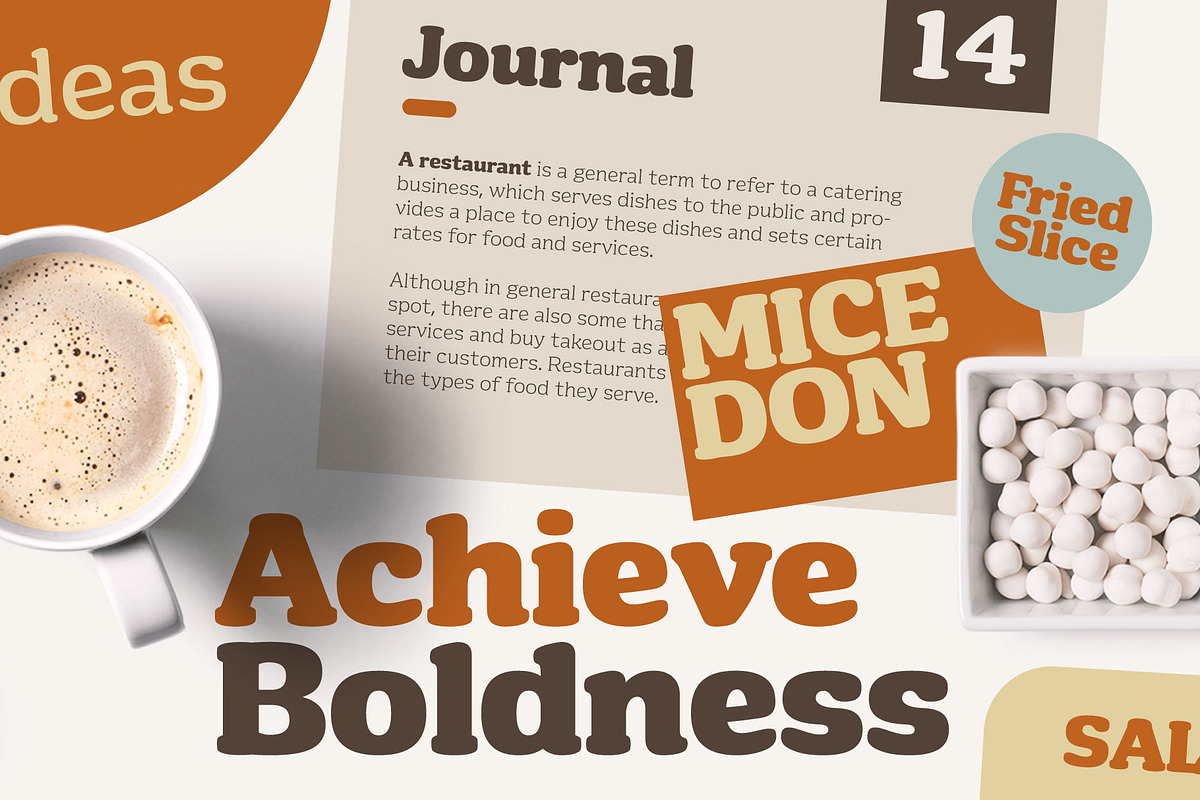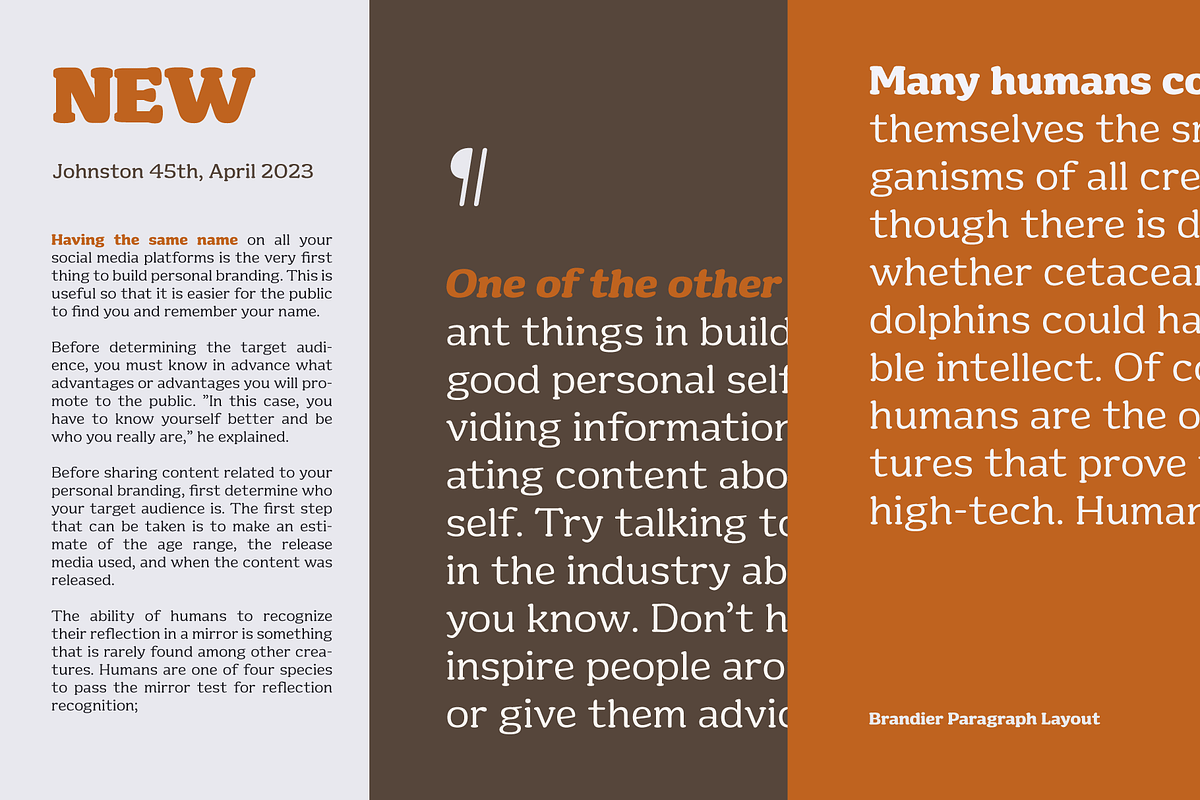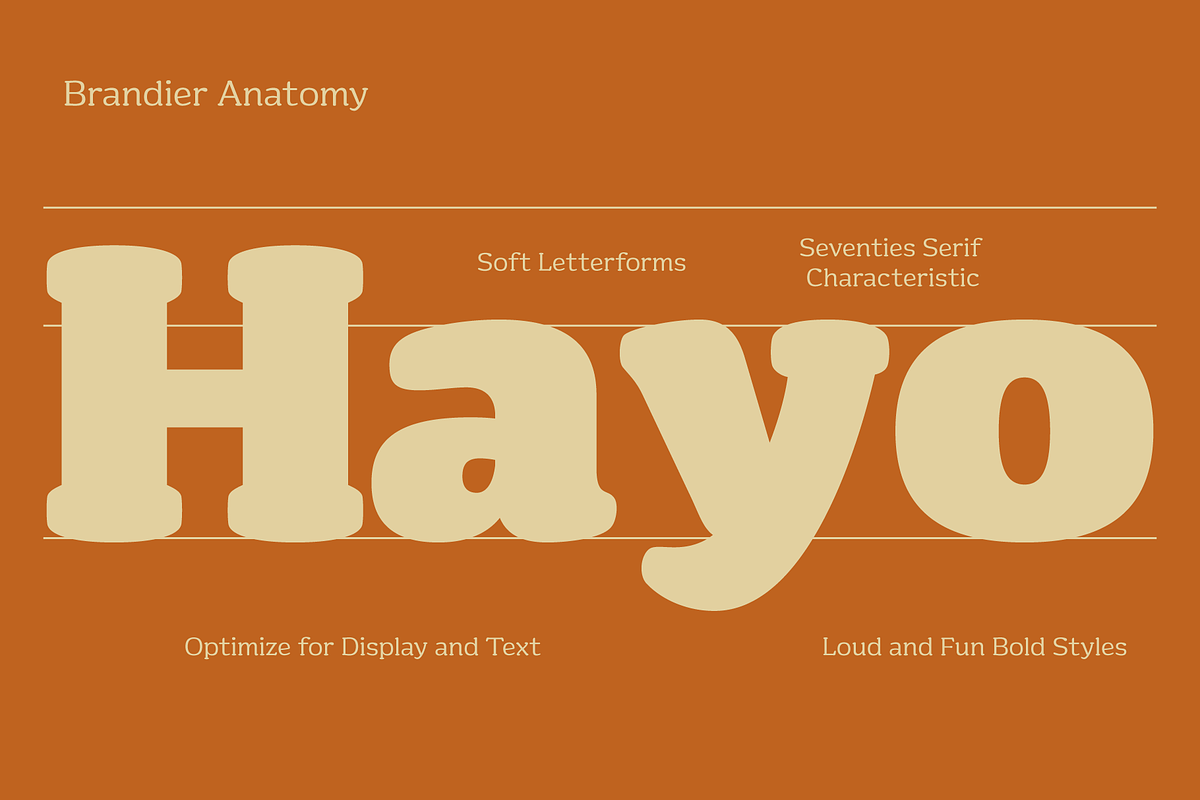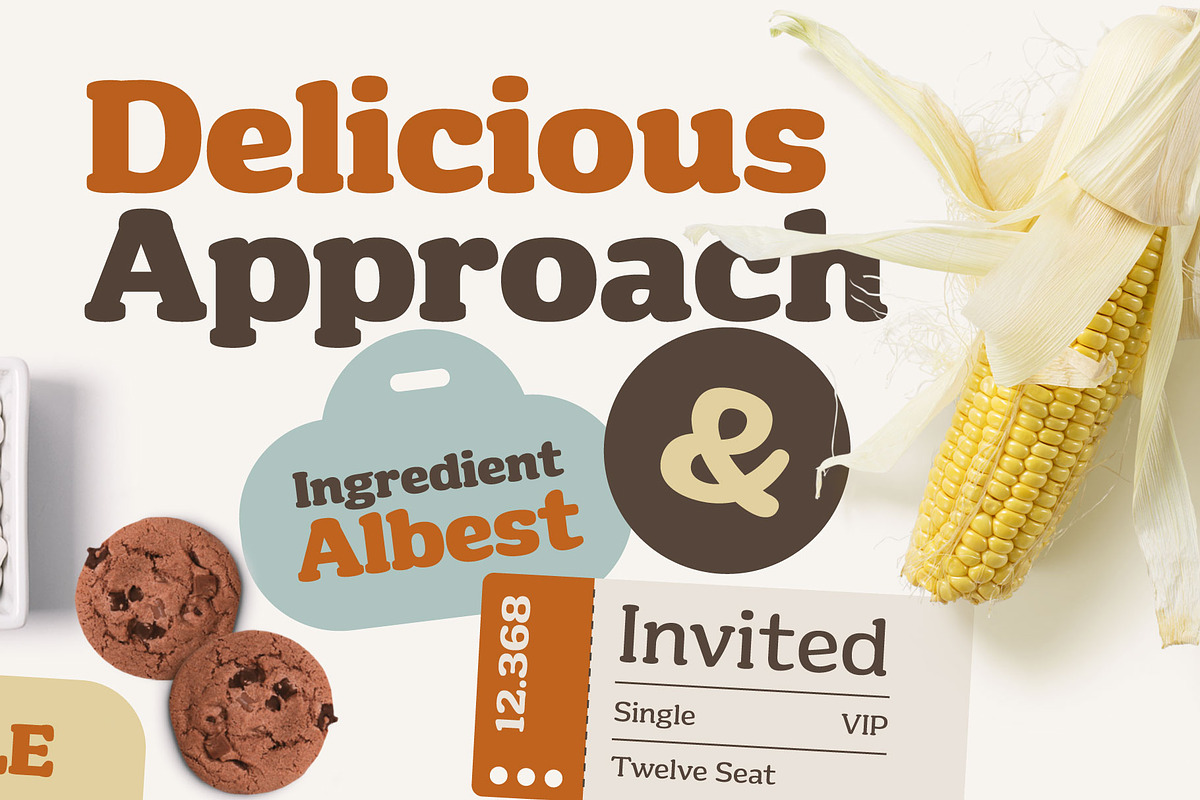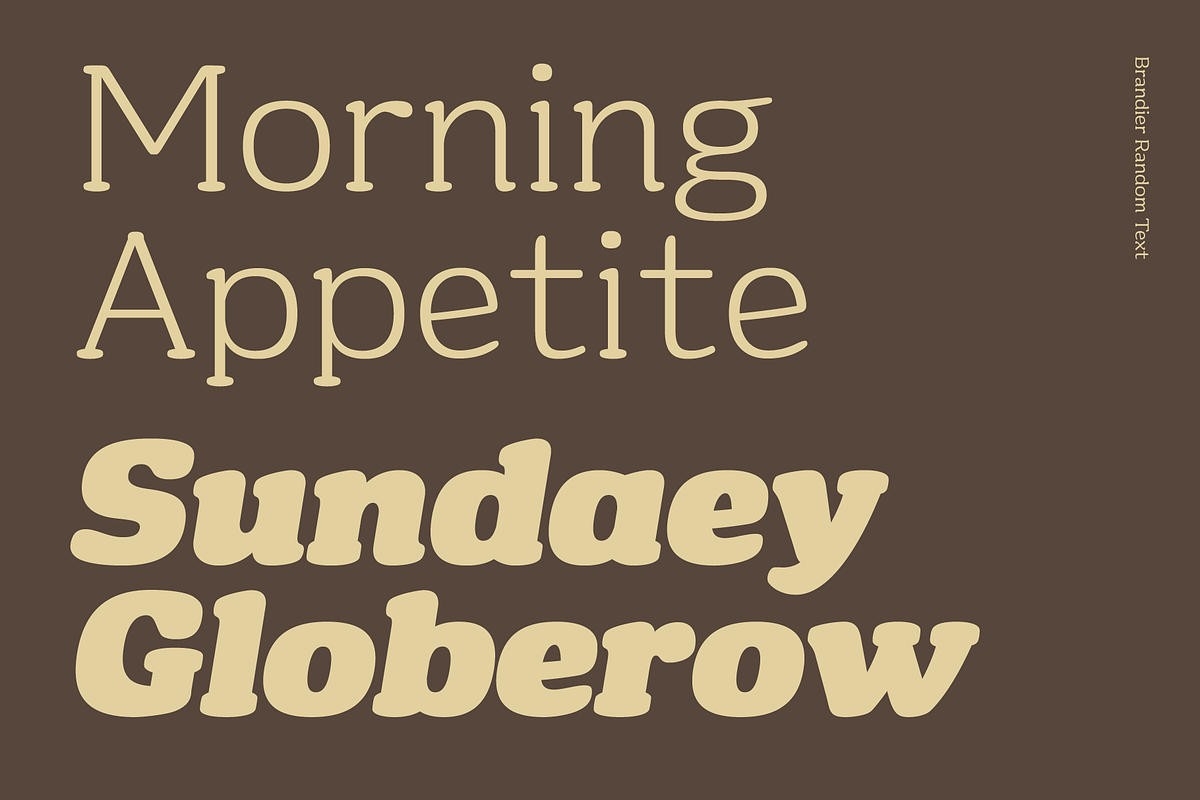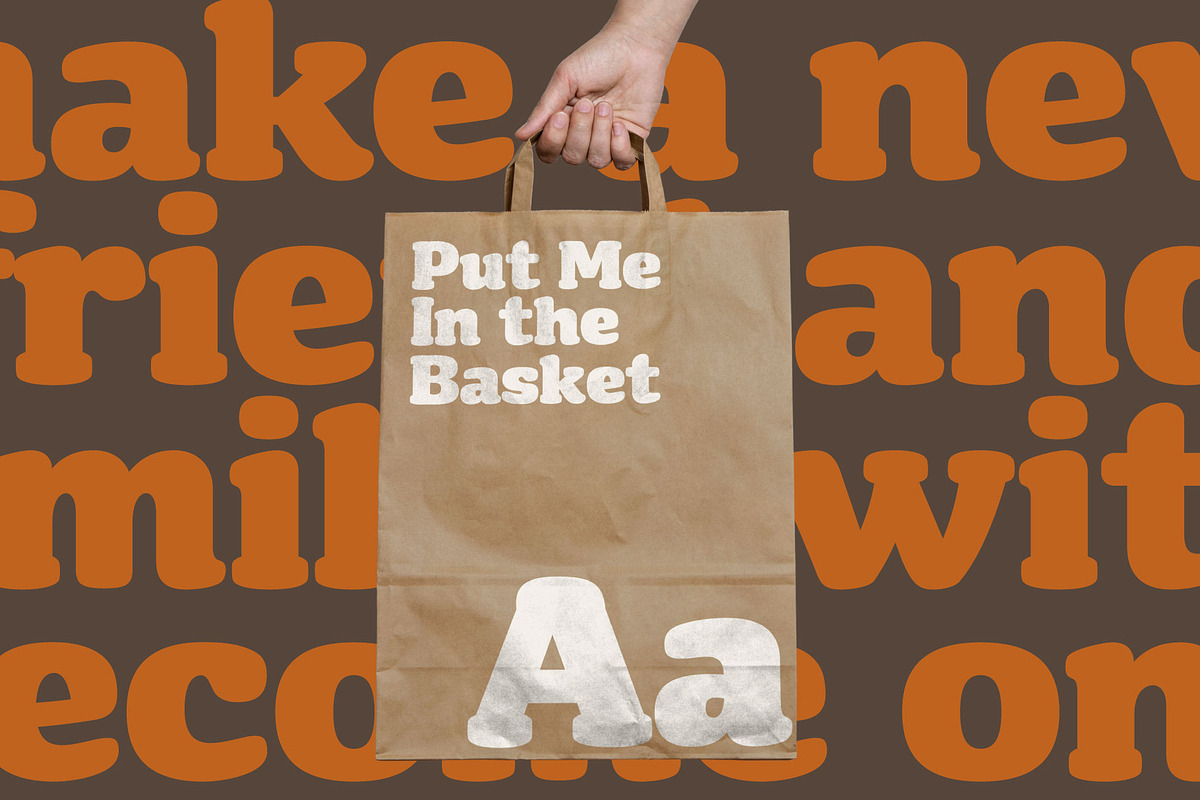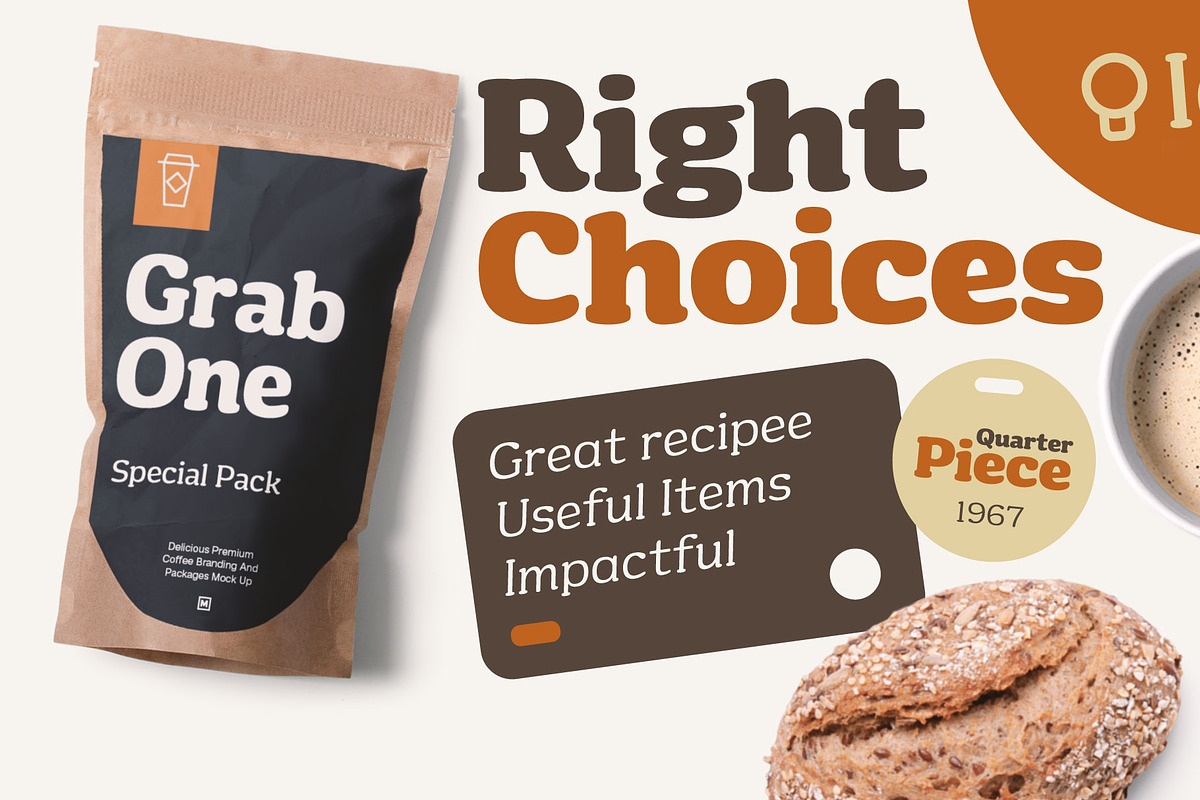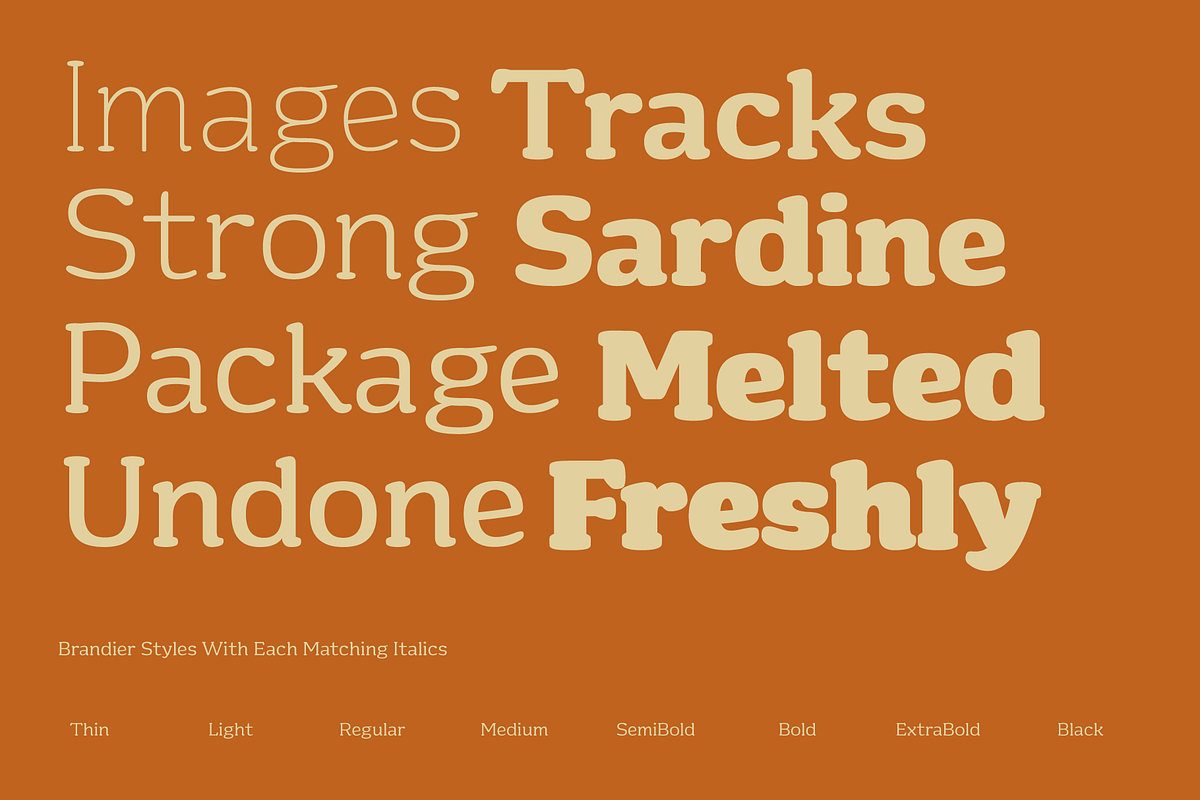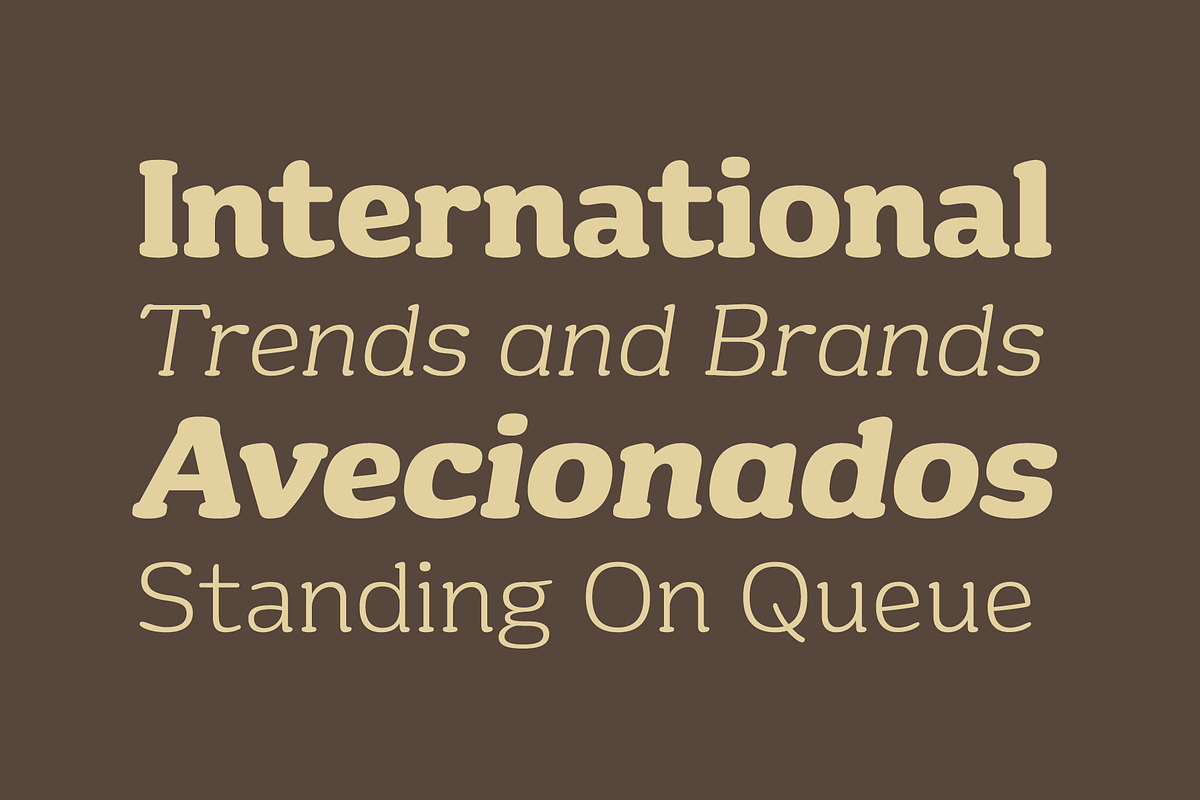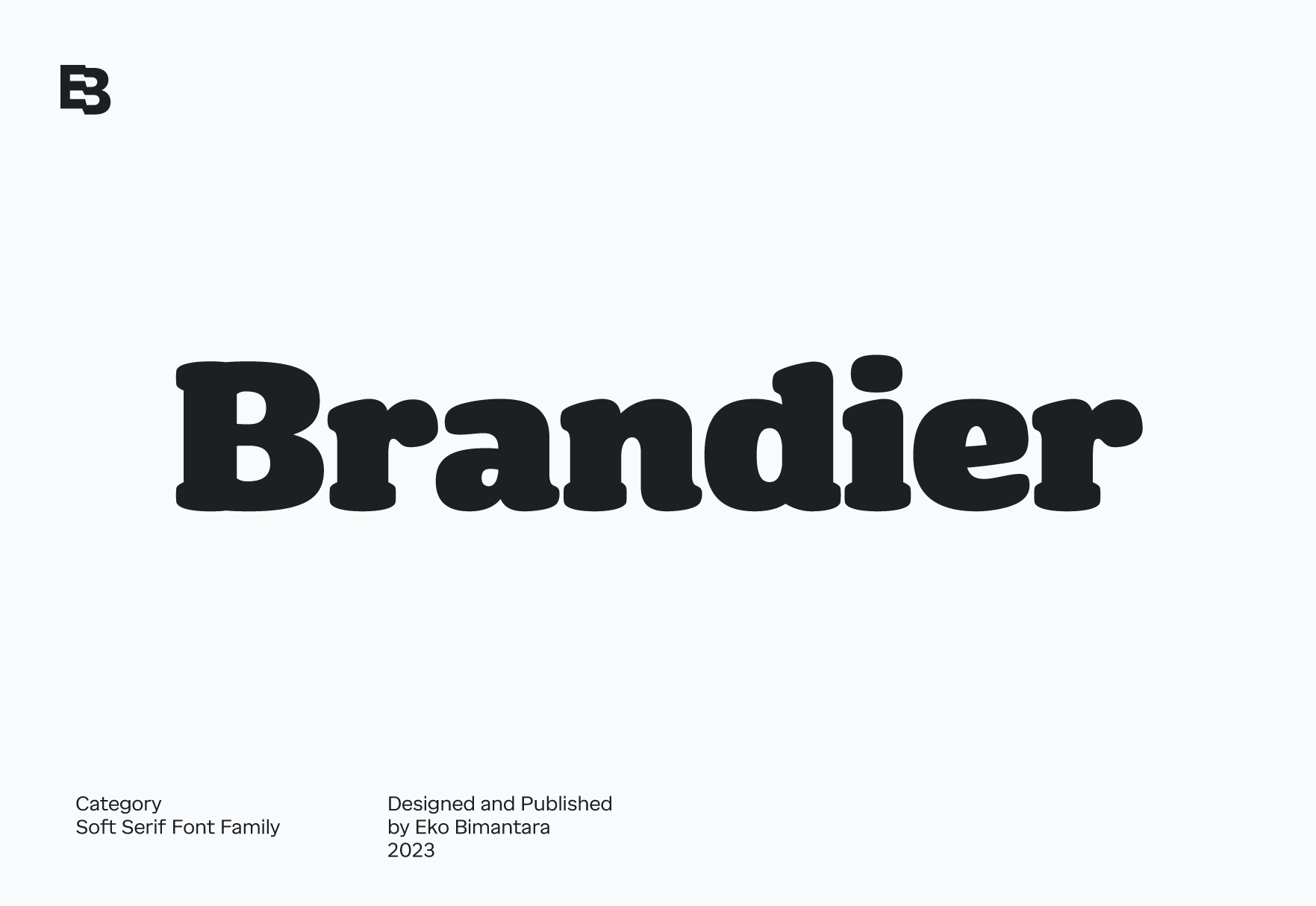
Brandier; Soft Serif Font Family
Brandier is soft serif fonts embody the nostalgic typographic styles of the seventies with soft edges and bold, captivating heavy weight designs. Infused with warmth and playfulness, its large x-height and balanced regular and italics styles ensure a delightful reading experience. Ideal for diverse applications including Text and Display usage, Logo creation, Website design, Brand Identity development, and Product Packaging, catering to a broad spectrum of Graphic Design and Creative needs.
This versatile font family comprises 16 Styles, ranging from Thin to Black, each accompanied by corresponding Italics. The package includes 16 font files in desktop and web formats (.otf, .ttf, .woff), contain OpenType features such as Standard Ligatures, Discretionary Ligatures, and Alternates. Brandier offers Variable Font options in the Complete Family. Brandier Supporting a wide array of languages, including Afrikaans, Albanian, English, French, Croatian, Czech, Danish, Dutch, German, Hungarian, Indonesian, Italian, Polish, Portuguese, Romanian, Slovak, Spanish, Swedish, and Turkish. Brandier published in 2023.